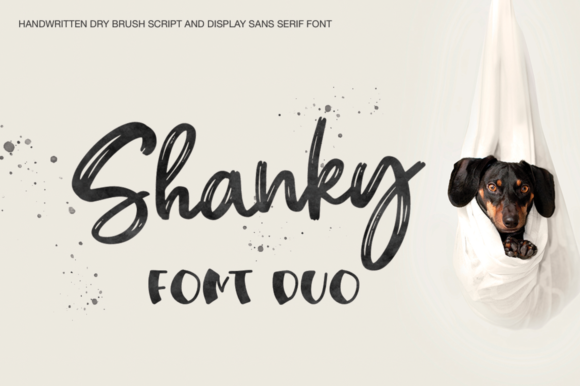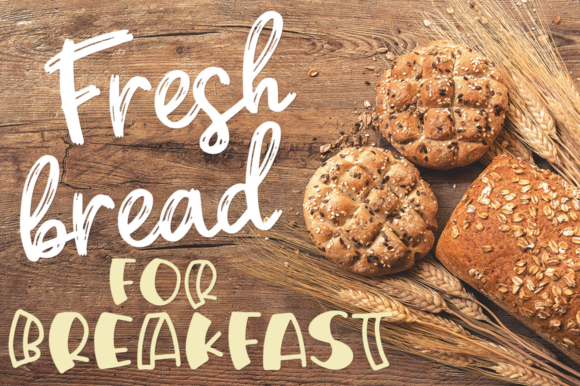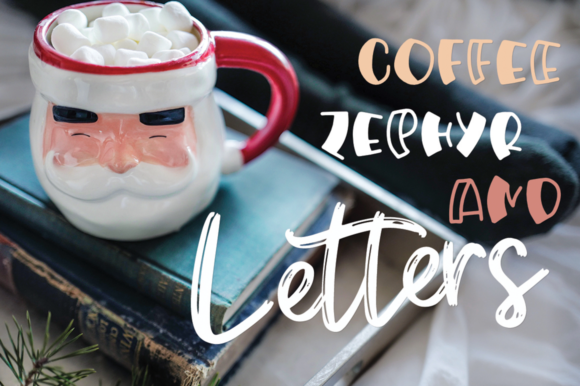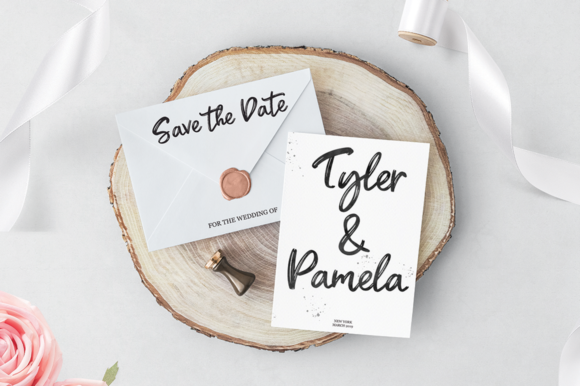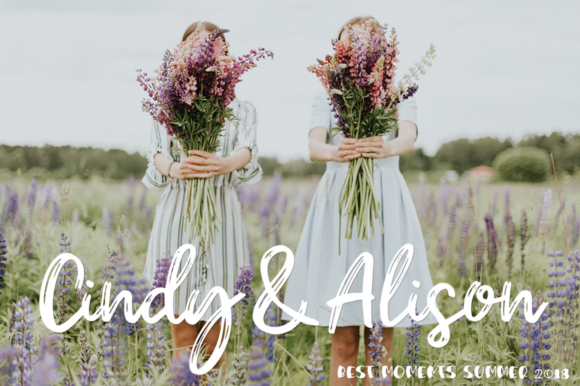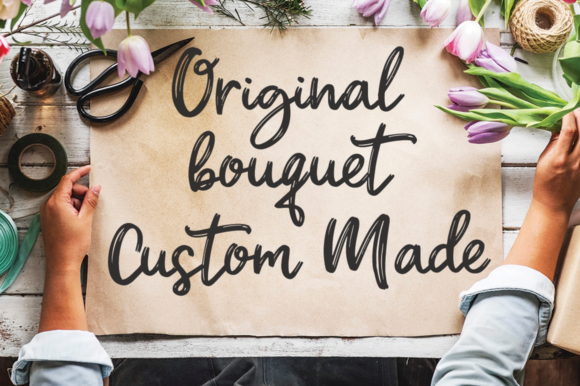
Shanky Font
About Shanky Font
The Shanky is a beautiful font duo. It comes as a script and sans version which gives you the opportunity to create an unique design, every time you use it.